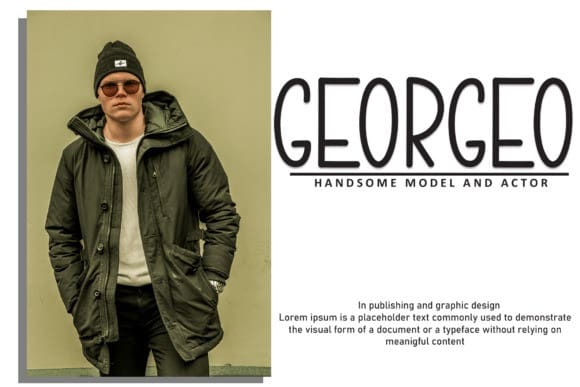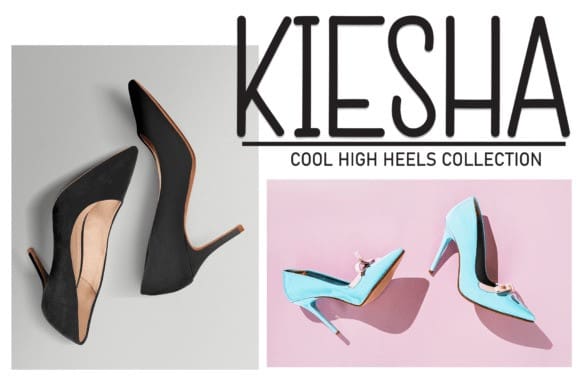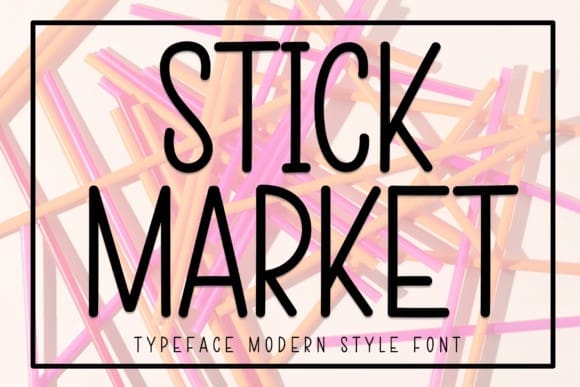
Stick Market Font
Stick Market Font is a sweet and friendly display font. Cute and fun, this font is ideal for writing wedding invitations, cards, or any other design that might need a fun touch!